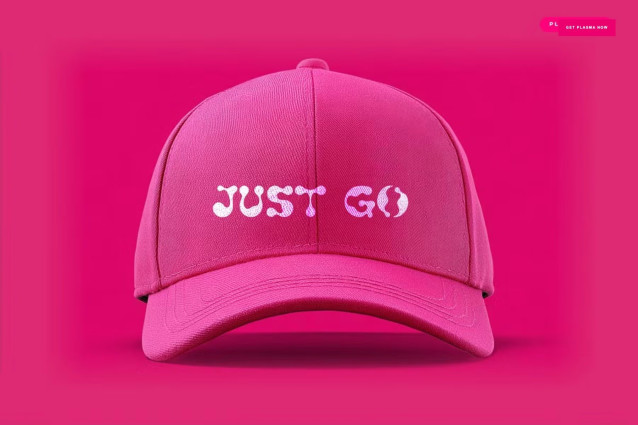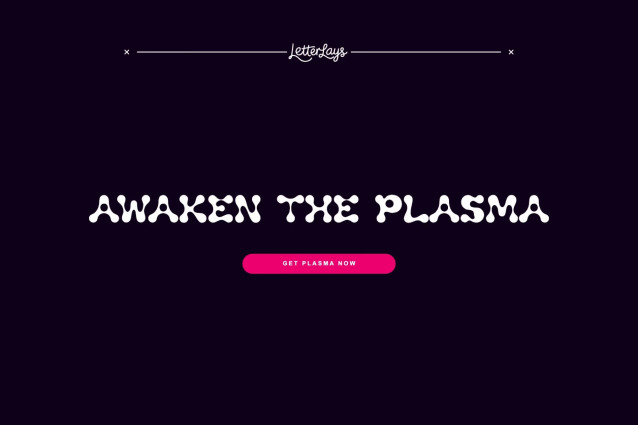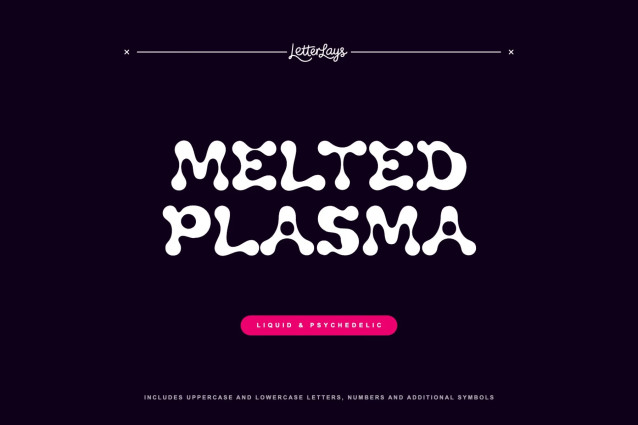
🌈 Melted Plasma is a psychedelic and liquid-inspired font designed to bring a trippy storytelling vibe to your creative projects. This digital download features melted, abstract curves and a vibrant psychedelic aesthetic, making it perfect for experimental branding, trippy editorial layouts, and high-impact digital design. Its seamless, melting letterforms capture a sense of fluid motion and professional polish that will liquefy any visual identity with energy.
🌈 Whether you are crafting an abstract logo or a trippy headline, Melted Plasma provides the psychedelic geometry and liquid attitude needed for state-of-the-art designs. The font’s unique liquid glyphs and psychedelic aesthetic allow for endless creative possibilities across various digital platforms. Transform your work with this premium typeface that seamlessly blends experimental elegance with liquid storytelling power for your brand. 🌈